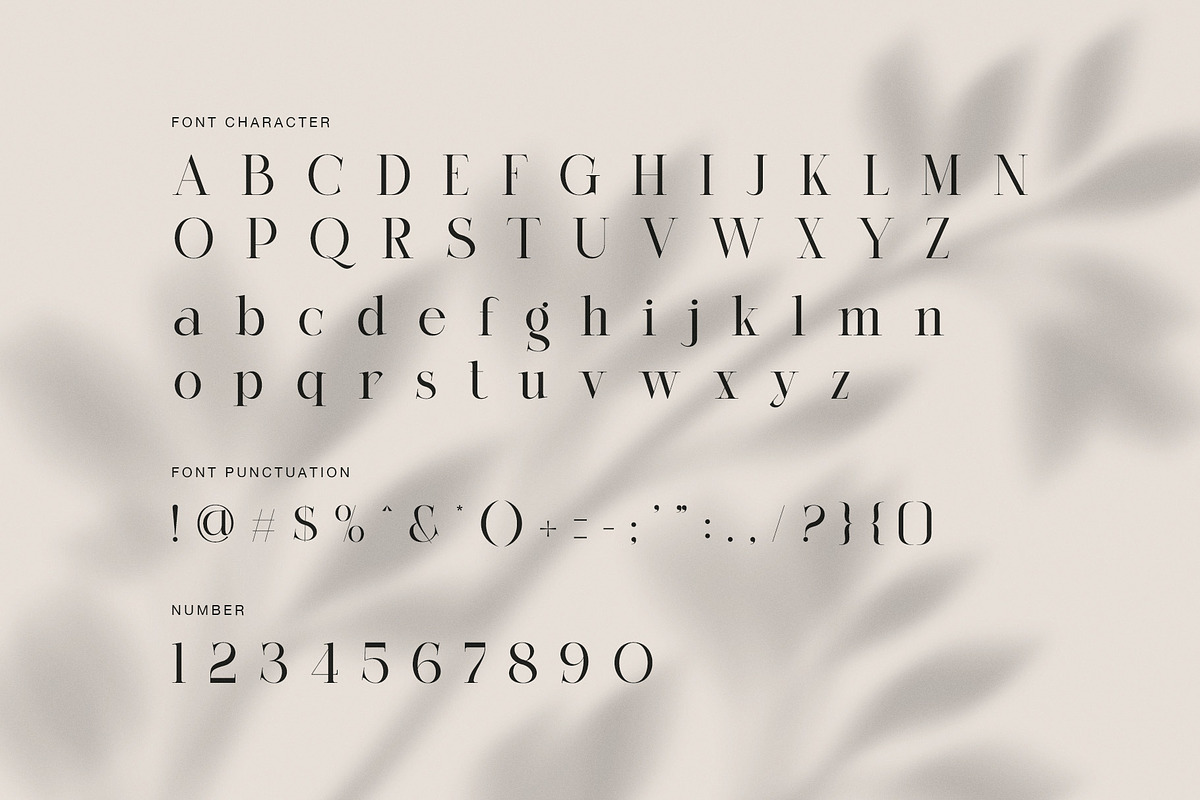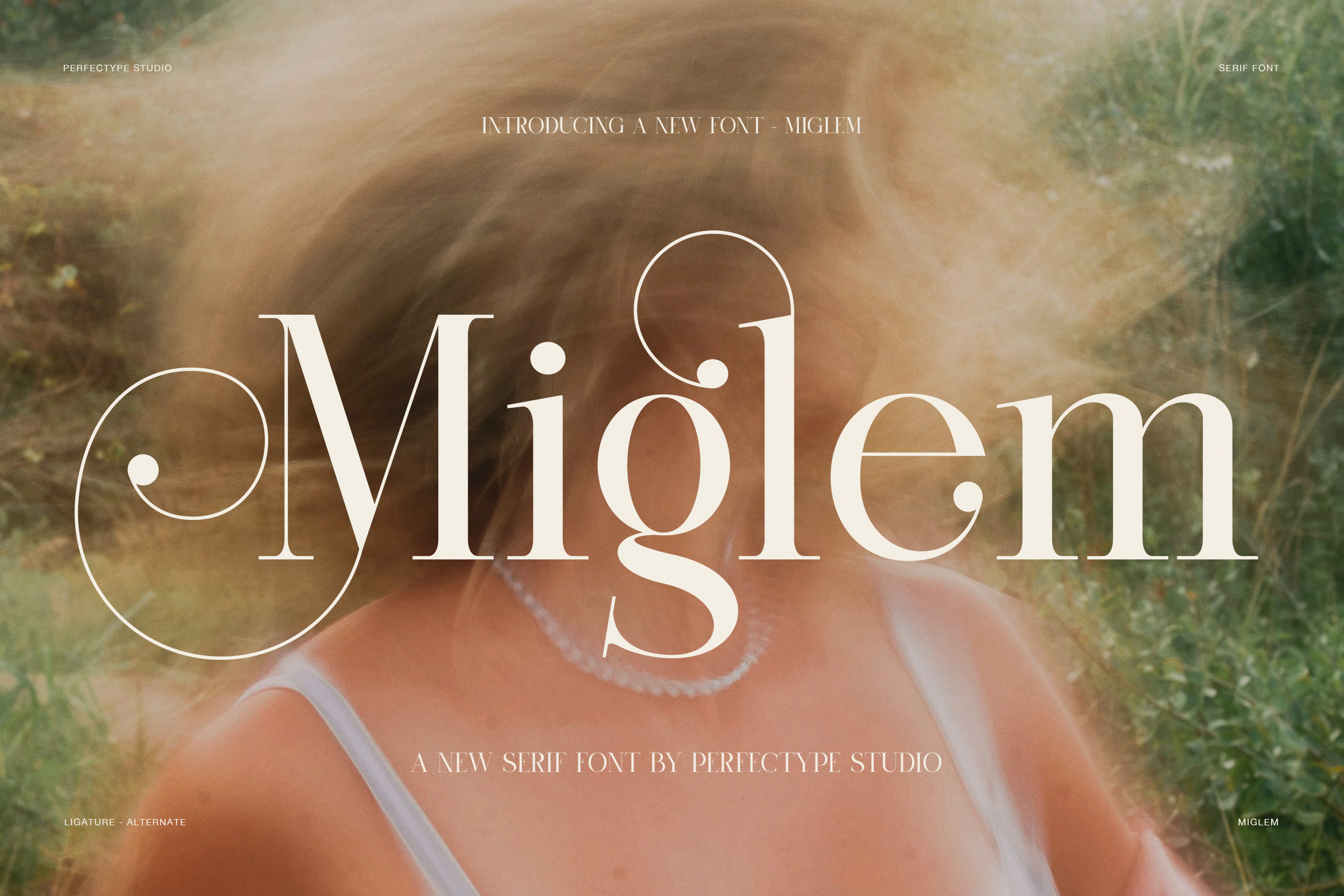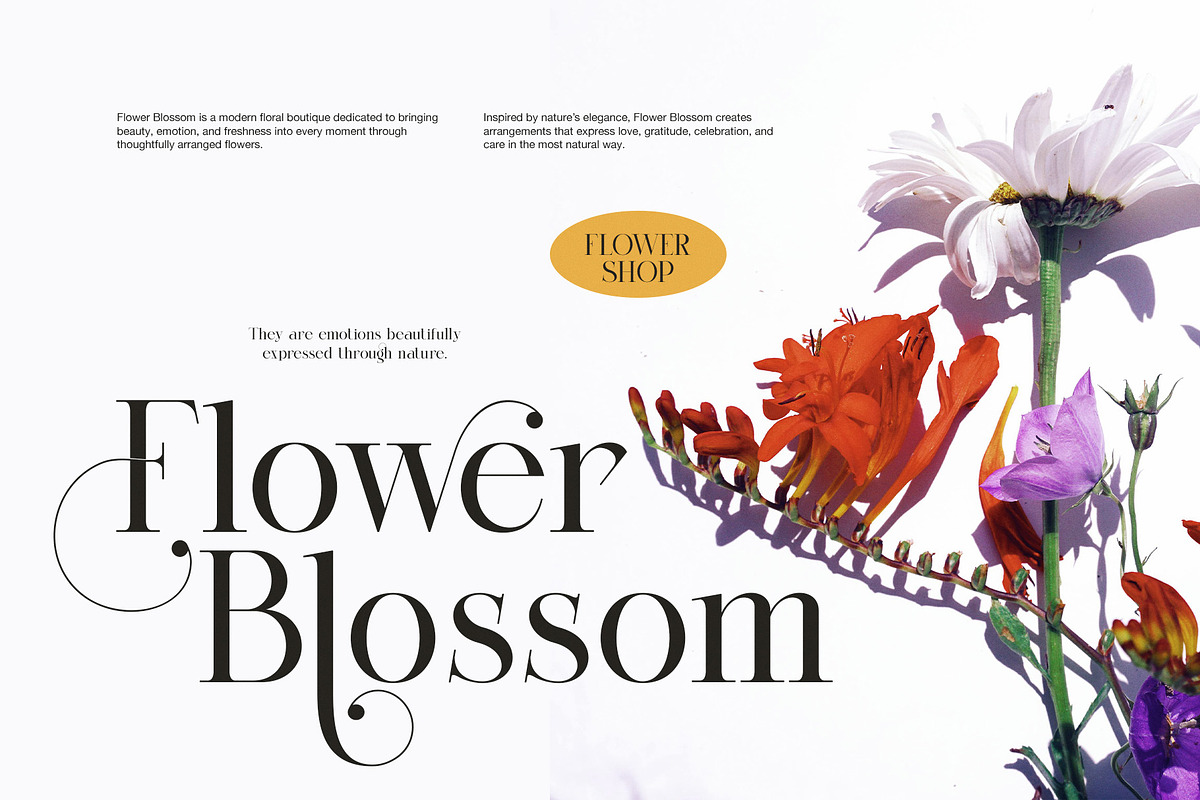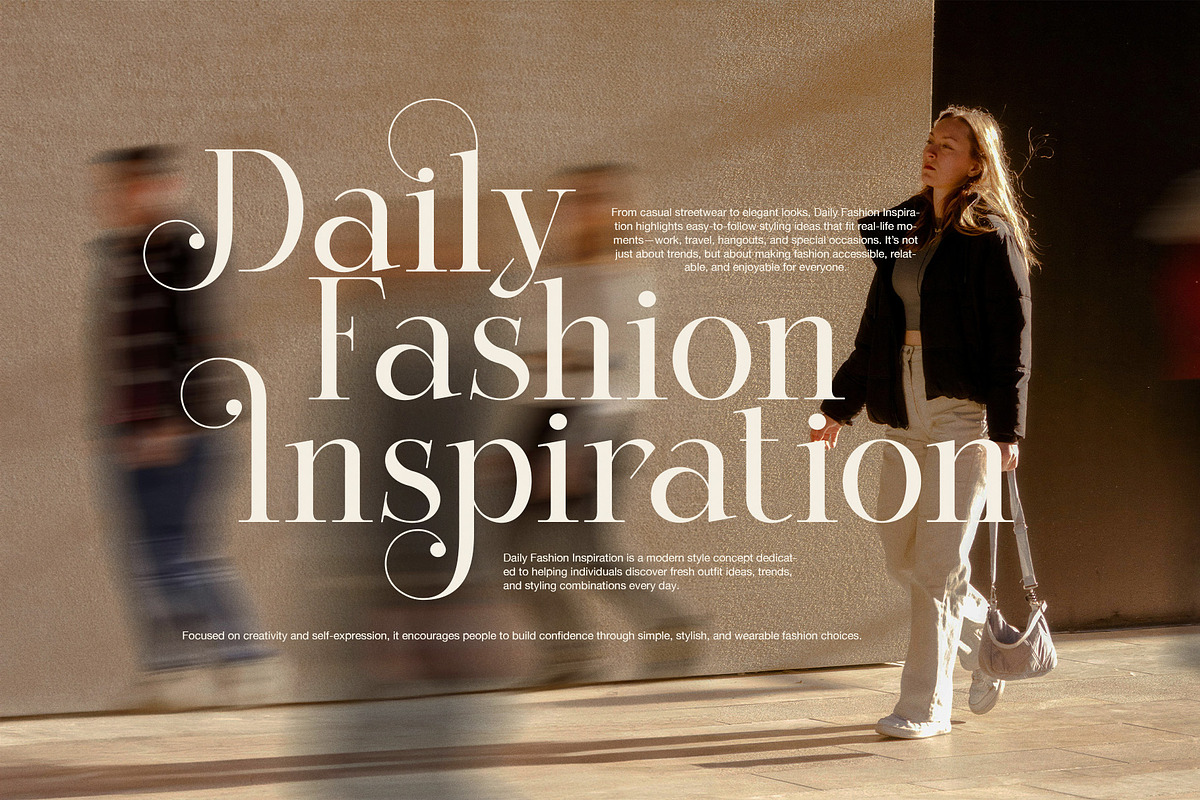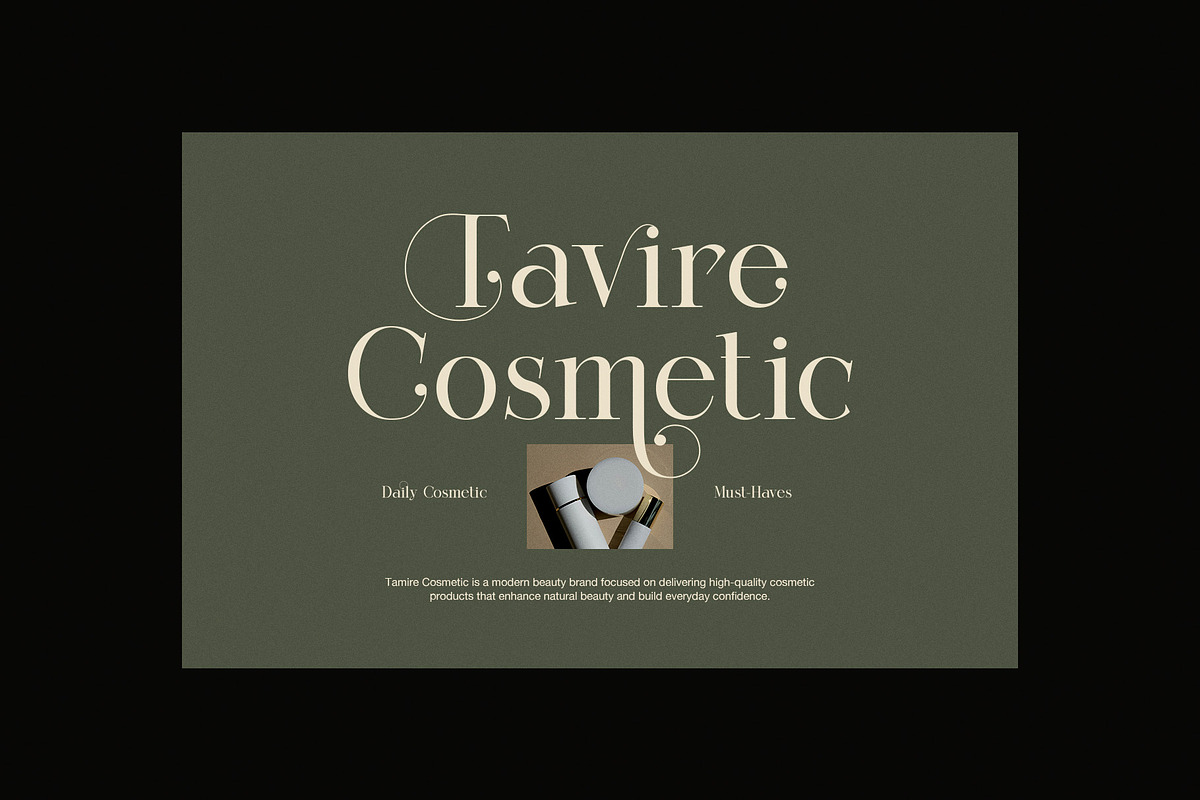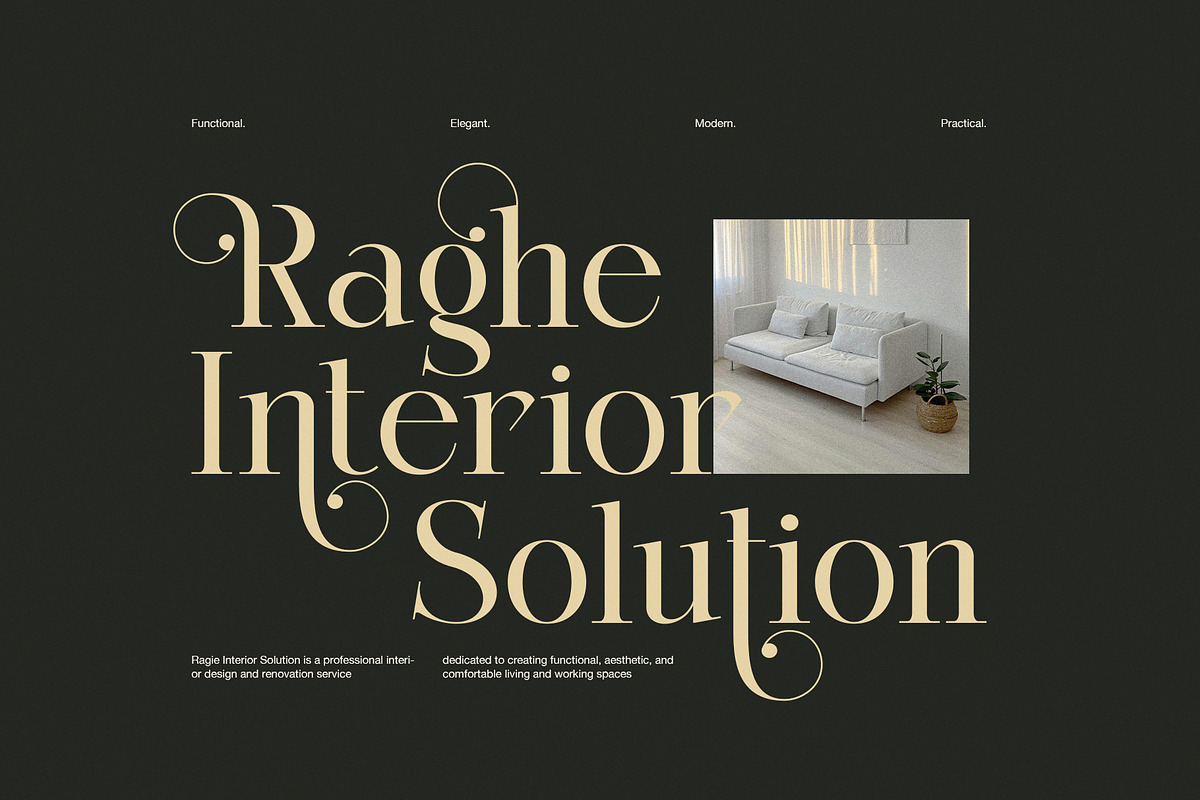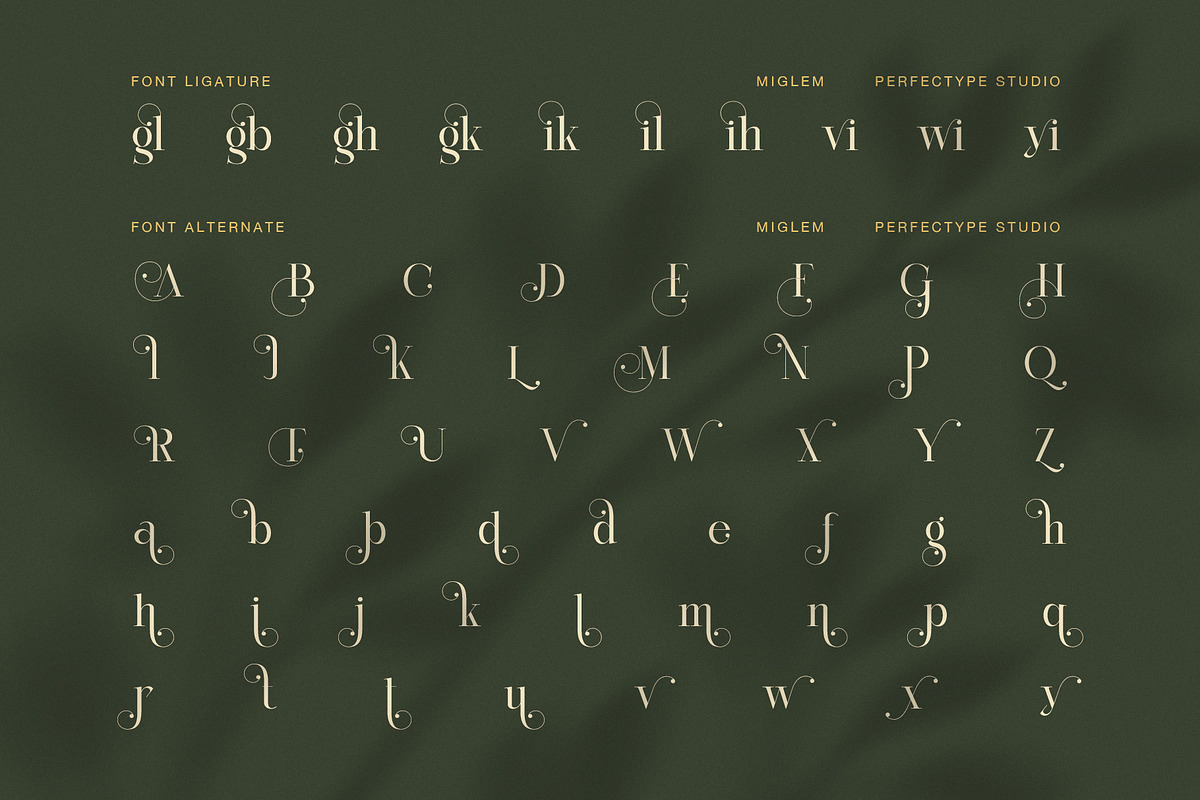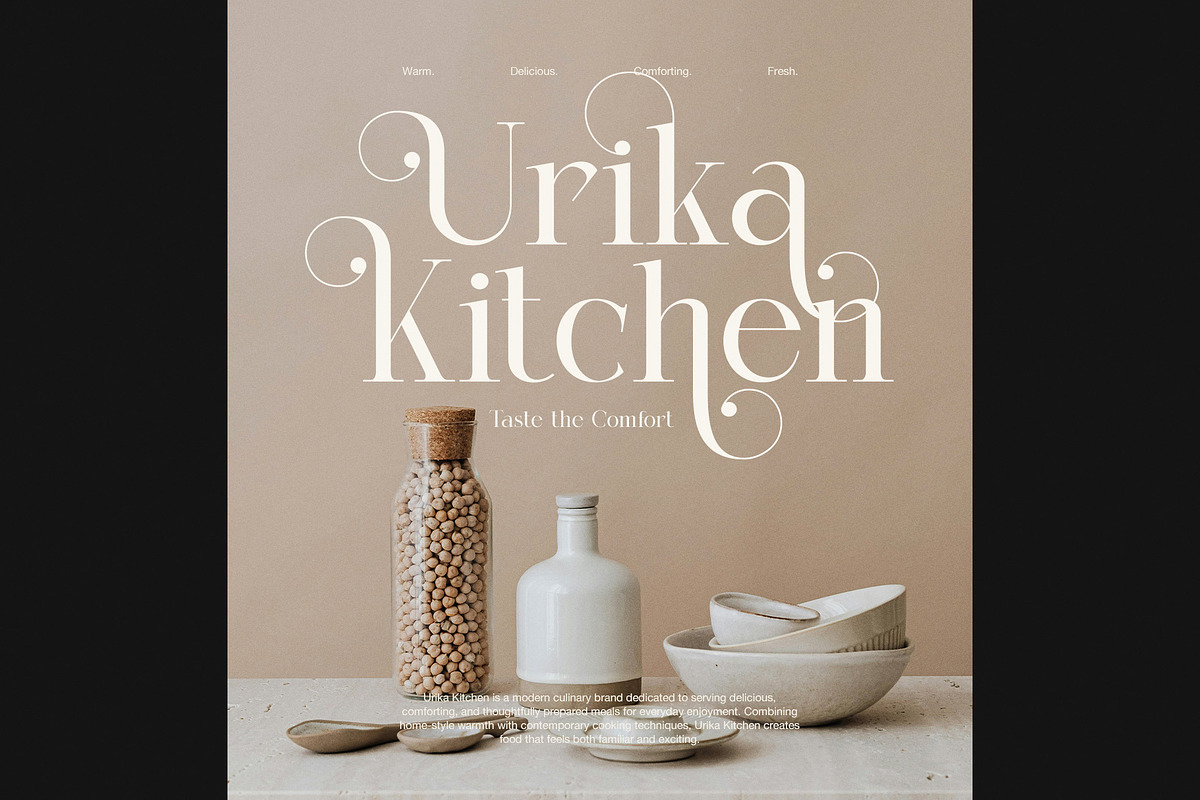
Miglem Elegant Ligature Serif Font
Miglem Elegant Ligature Serif Font is a graceful display serif designed for brands that want to look refined, artistic, and memorable. It blends thin high-contrast strokes with soft curves, flowing alternates, and decorative ligatures. As a result, Miglem feels elegant at first glance, yet it also carries a fresh and modern mood.
This typeface has a strong beauty in its details. The main letterforms are slim, poised, and stylish, while the swash alternates add charm and movement. Because of that, Miglem works very well in layouts that need both softness and distinction. It does not feel heavy or rigid. Instead, it feels delicate, expressive, and carefully crafted.
Moreover, Miglem is a smart choice for luxury branding. It looks beautiful on fashion logos, cosmetic packaging, floral identities, wedding stationery, boutique labels, and editorial headlines. The decorative ligatures help simple words feel custom and polished. Therefore, designers can create a premium look with less effort and more character.
Another strength of Miglem is its balance. Although the font is decorative, it still stays clean and readable in large text. That makes it ideal for titles, hero text, brand names, packaging, and social media visuals. In addition, the alternates give you more styling options, so each design can feel more unique and personal.
Miglem is especially suited for projects that need a feminine, romantic, or artistic tone. However, it can also work for modern lifestyle brands, interior design, cafés, and elegant product campaigns. Because the shapes are refined and the contrast is crisp, the font adds class without losing warmth.
Why Miglem stands out
elegant serif style
refined ligatures
decorative alternate characters
graceful high-contrast strokes
feminine and romantic tone
stylish for luxury branding
Best uses for Miglem
fashion branding
beauty packaging
floral logo design
wedding invitations
editorial headlines
boutique identity
café menus
interior branding
social media posts
product labels
If you need an elegant ligature serif font with a soft luxury mood, Miglem is a beautiful option. It helps brands look polished, expressive, and timeless. Meanwhile, its alternates and ligatures give every composition a more distinctive and artistic finish.